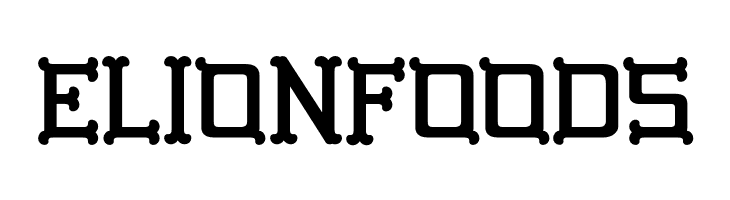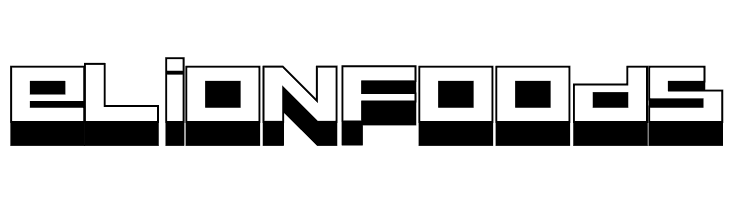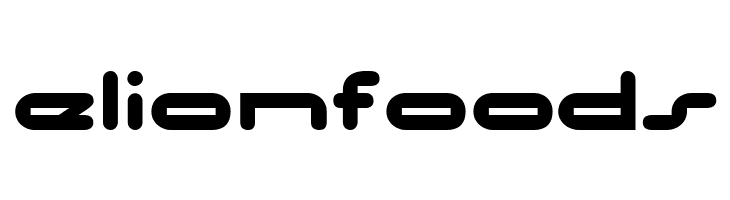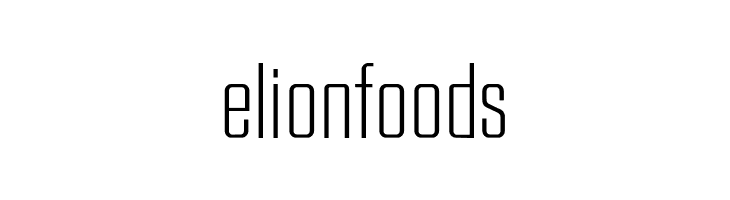
An exotic, decorative font with intricate, bold strokes and a modern twist.
A futuristic, angular font with sharp lines and a geometric style.
An artistic, abstract font with thin, fluid strokes and a modern aesthetic.
A bold, bone-like font with a playful, edgy design.
A bold, three-dimensional outline font with a modern and futuristic style.
A futuristic, geometric font with bold, rounded characters and consistent stroke widths.
A playful, bold font with rounded edges and a hand-drawn feel.
A bold, futuristic font with angular, geometric shapes and a modern, tech-inspired style.
A bold, futuristic font with geometric shapes and a tech-inspired design.
A modern, geometric font with a tall, narrow structure and consistent stroke width.